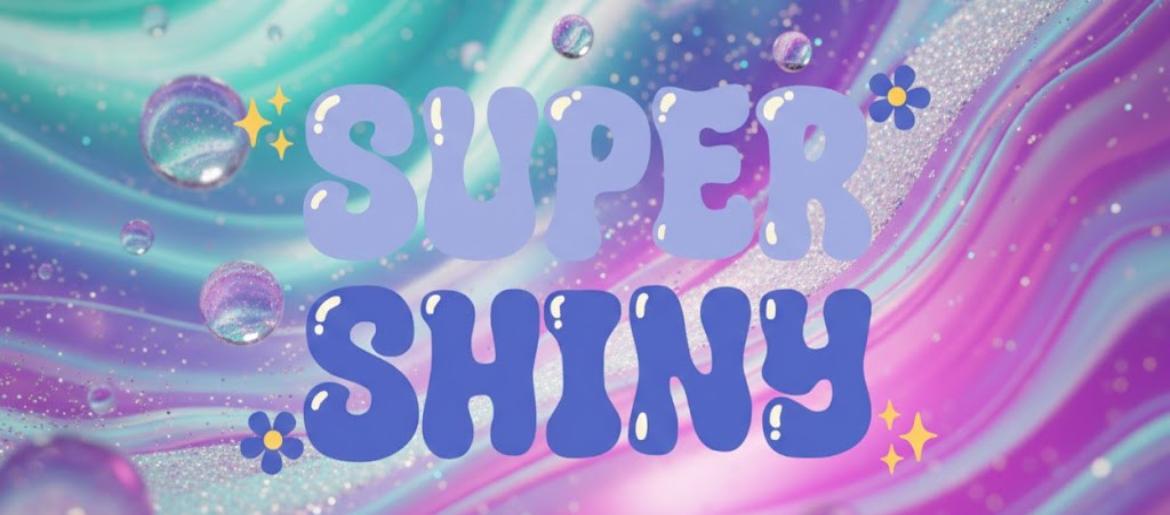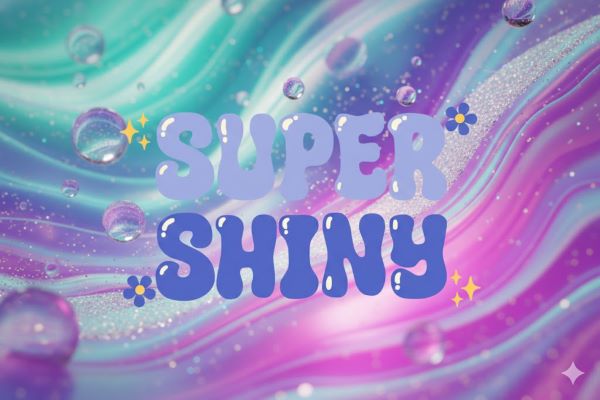
Super Shiny Font
Super Shiny Font is a fun bubble-style typeface with glossy, rounded letterforms that create a shiny, playful look. Its cheerful personality makes it perfect for kids’ designs, stickers, logos, posters, and colorful graphics that need a bold, joyful, and eye-catching style.
➤ Font Name: Super Shiny
➤ Designer: All Super Font
➤ Style: Fancy, Bubble